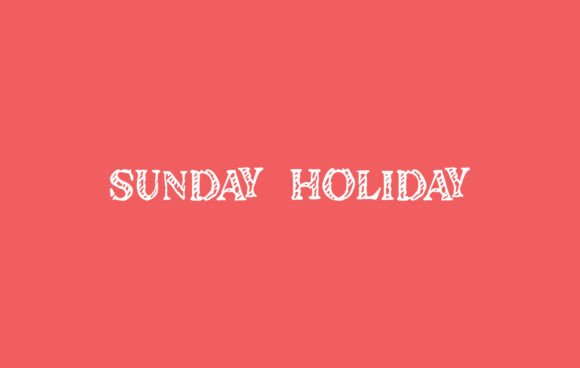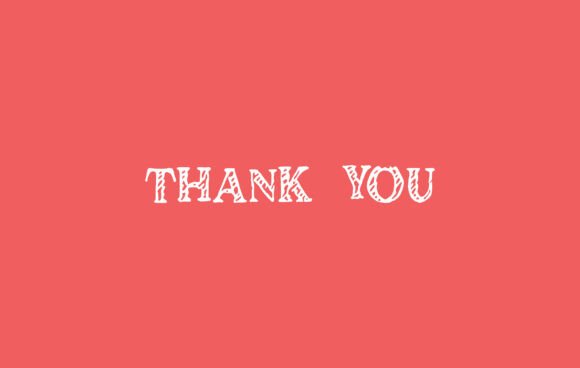
Introduction to Self Dream Font
There’s nothing quite like the rush of inspiration that comes when you’re working on a creative project. You’re brainstorming ideas, experimenting with different styles, and trying to bring your vision to life. And then, it happens – you stumble upon the perfect font. For many designers, that perfect font is the Self Dream Font, an authentic handwritten font with a romantic touch.
Key Features of Self Dream Font
- High-quality, unique font design perfect for creative projects
Honest Review: Self Dream Font
I recently came across the Self Dream Font, and I must say it’s been a great addition to my design resources. ✨ The font’s unique, dreamy quality makes it perfect for creative projects that need a touch of whimsy.
One of the things that stood out to me about the Self Dream Font is its high quality. The font is crisp and clear, even when used at larger sizes. I was also impressed by the transparent background option, which makes it easy to layer over other design elements.
- Unique, dreamy quality ✨
- High quality and crisp
- Limitations:
- May not be suitable for formal or professional designs ⚠️
- Could be improved with more font styles and weights
The Self Dream Font is perfect for various design projects, including:
- Blog posts and articles
- Wedding invitations and party decorations
Alternatives to Self Dream Font
Pacifico Font is a free download for designers, ideal for creative projects requiring a unique, elegant aesthetic. It features a transparent background and is perfect for use on design resources such as menus, labels, and other high-quality designs. This font is perfect for adding a touch of sophistication to any design project, and its elegant feel makes